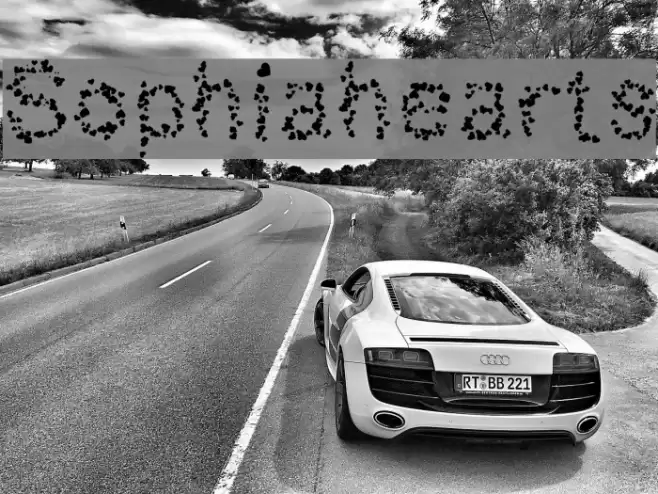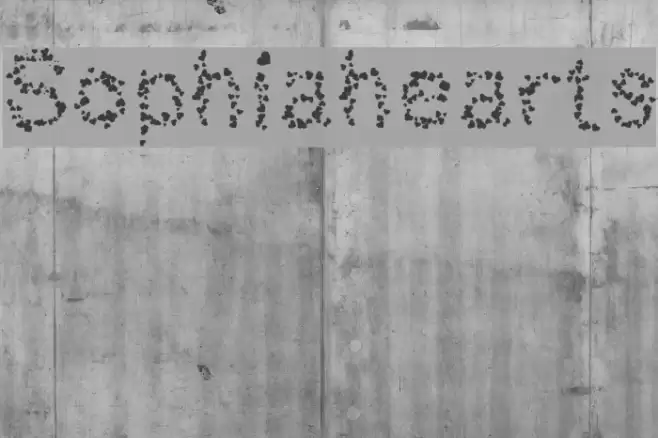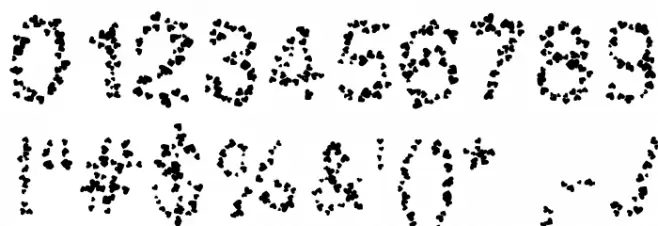
Sophiahearts Font
Sophiahearts Description
This playful and decorative font is composed entirely of small heart shapes, creating a whimsical and romantic appearance. Each character is formed by a collection of these hearts, giving the font a textured and unique look. The uppercase and lowercase letters, as well as numbers and special characters, maintain a consistent style, ensuring a cohesive design. The heart motif adds a sense of fun and creativity, making it ideal for projects that require a touch of love and charm. The font's distinct style is perfect for themed events, invitations, and playful branding.
A decorative font made of heart shapes, perfect for romantic and playful designs from Decorative fonts.
- Proposed Projects: Ideal for wedding invitations, Valentine's Day cards, playful branding, and themed event materials.
- Use Case: Headlines, Logos, Invitations